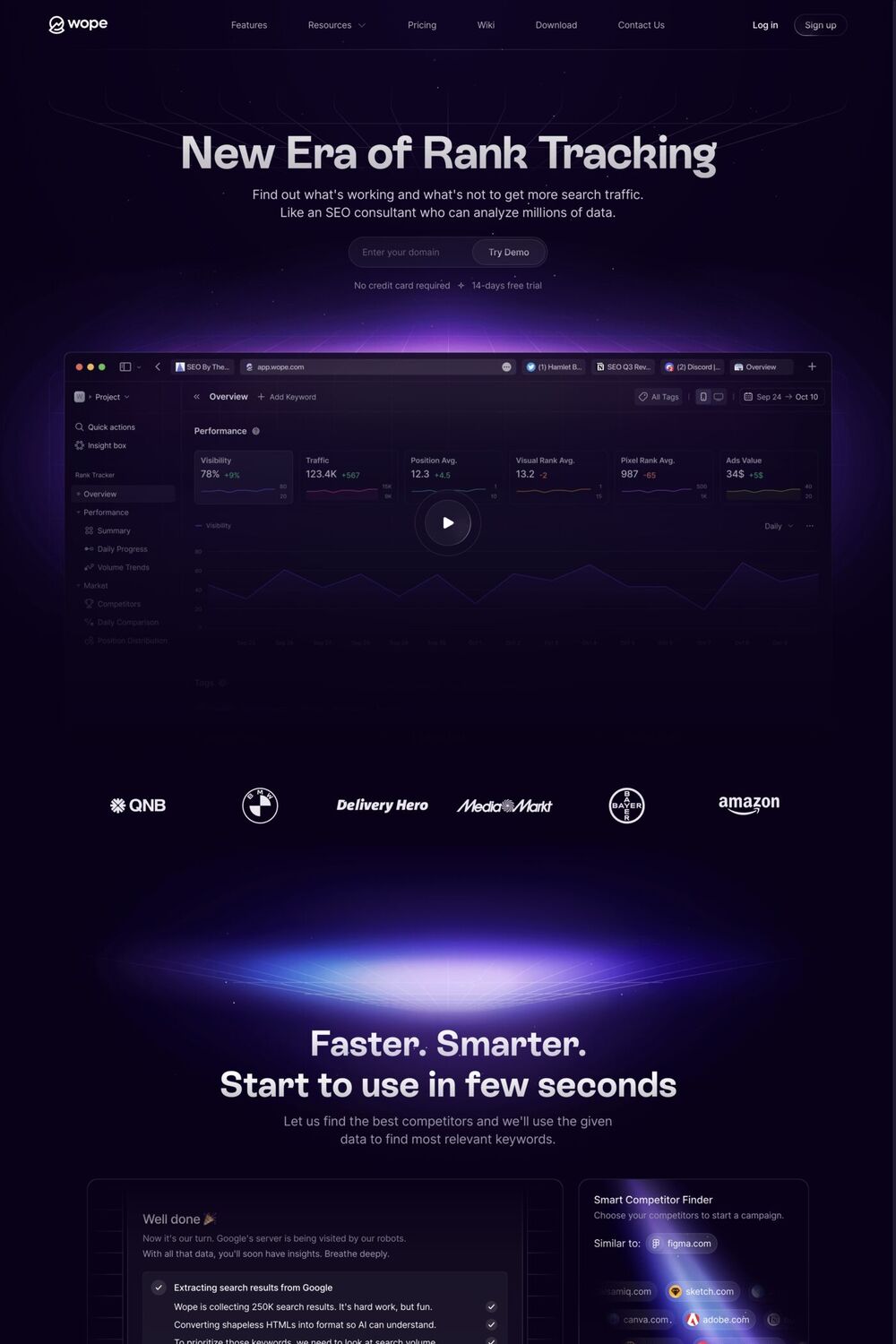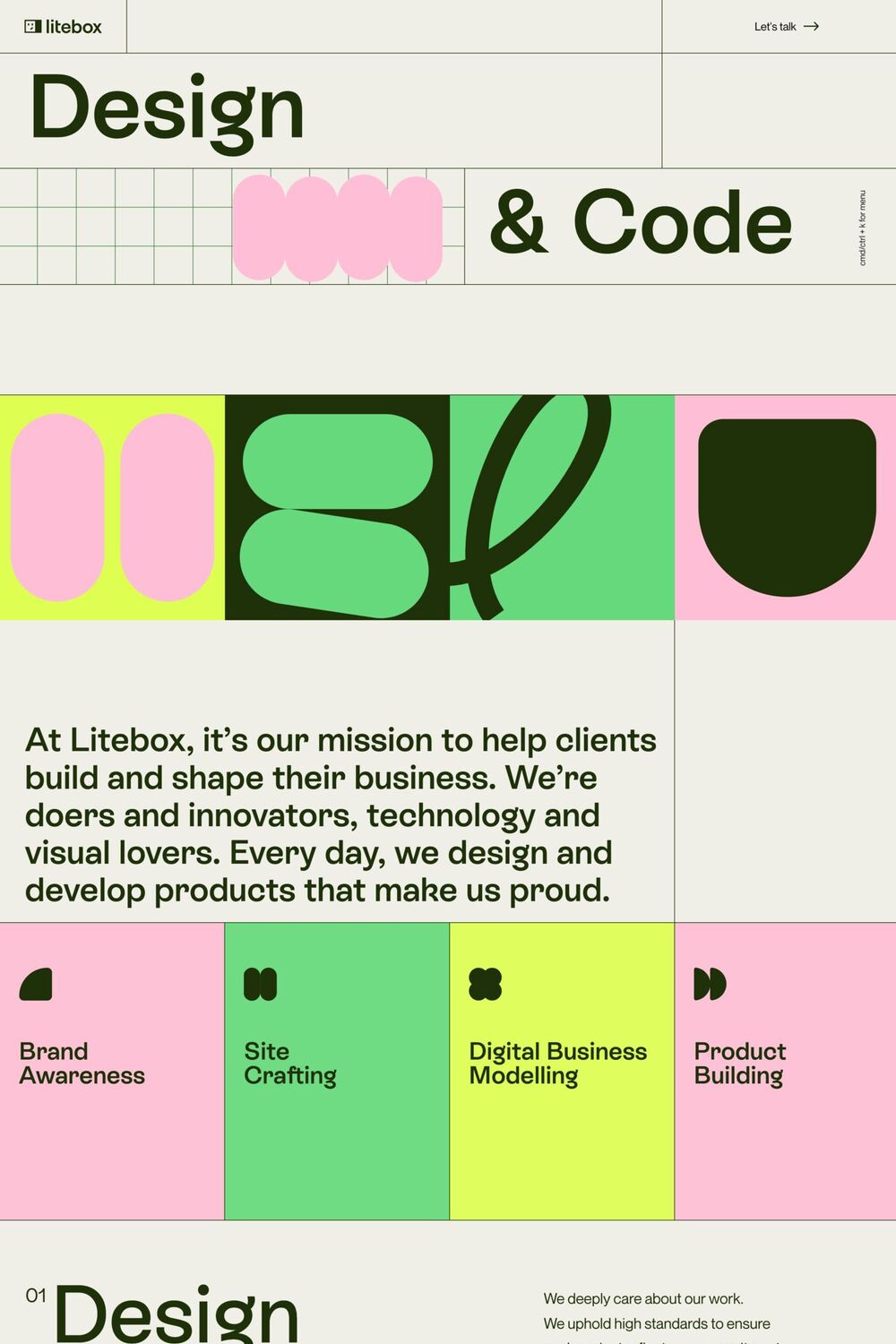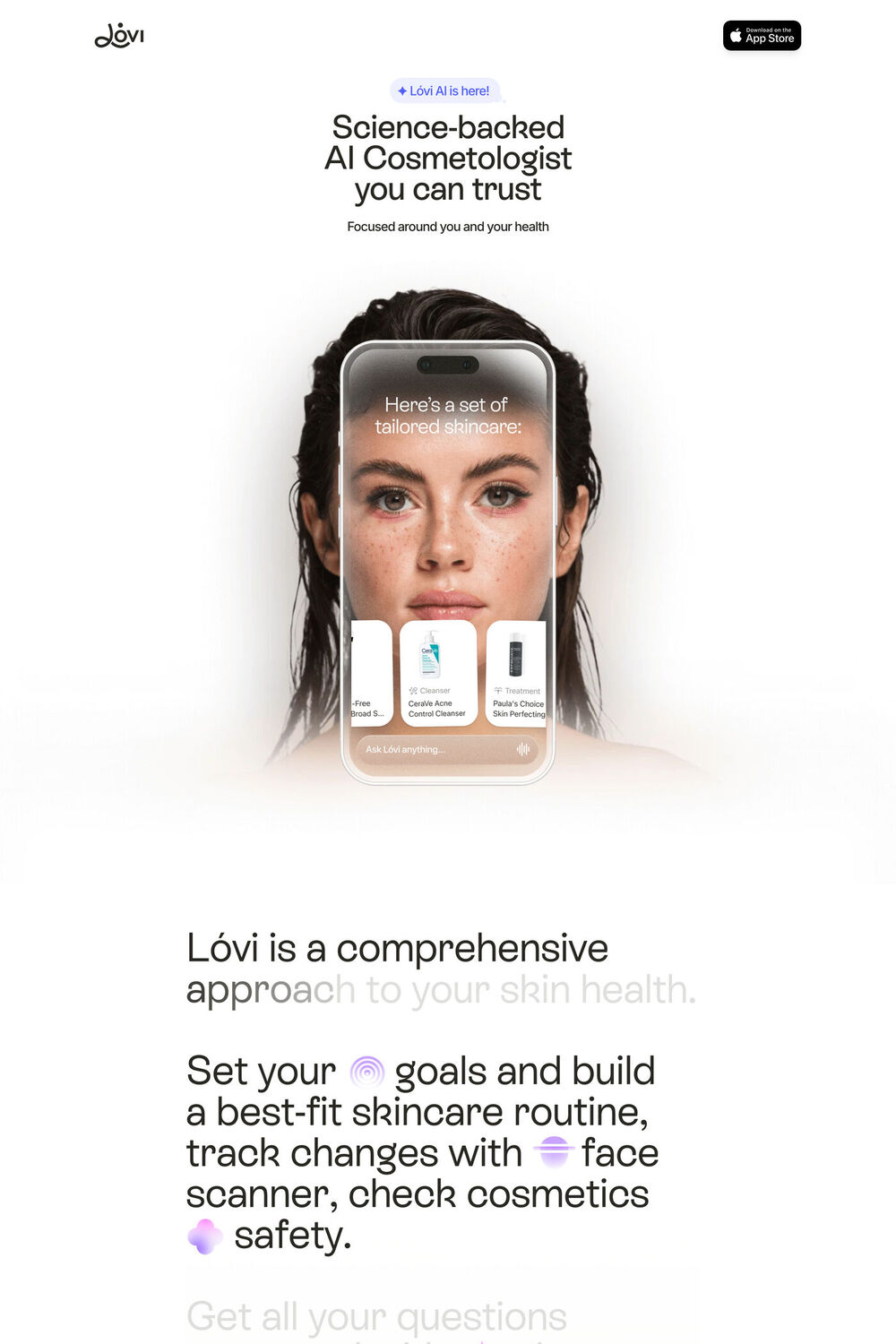
Rebond Grotesque is a sans-serif typeface from Extraset.
Rebond Grotesque is a typeface that is both strict and flexible. An assertive movement, expressed through curves and links, adds a French-Swiss impetus to the Germanic Grotesque. The overall effect is designed to express a certain sense of neutrality when the details carry a strong identity.